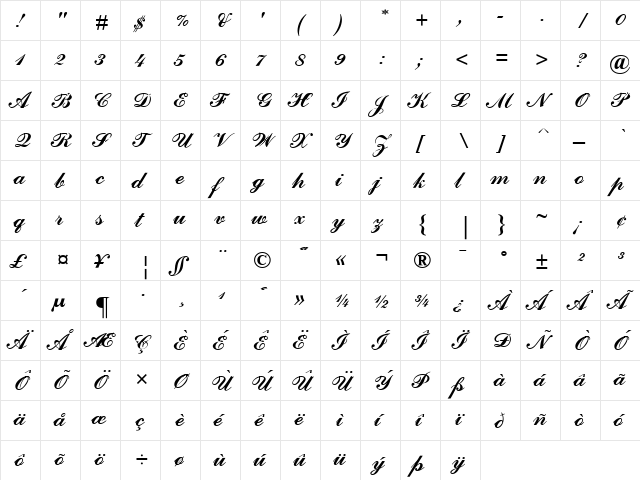
CommercialScriptMT Regular Font Preview
CommercialScriptMT Regular
Design Context for CommercialScriptMT Typeface
CommercialScriptMT flows with the natural rhythm of handwritten lettering, making it ideal for designs that call for warmth and personal expression.
Font Pairing: Combine CommercialScriptMT with a simple geometric sans for maximum contrast — the tension between flowing curves and clean structure is a classic typographic pairing.
Pro Tip: Pair CommercialScriptMT with a clean sans-serif for supporting text. The contrast between fluid script and geometric structure creates an elegant typographic hierarchy.